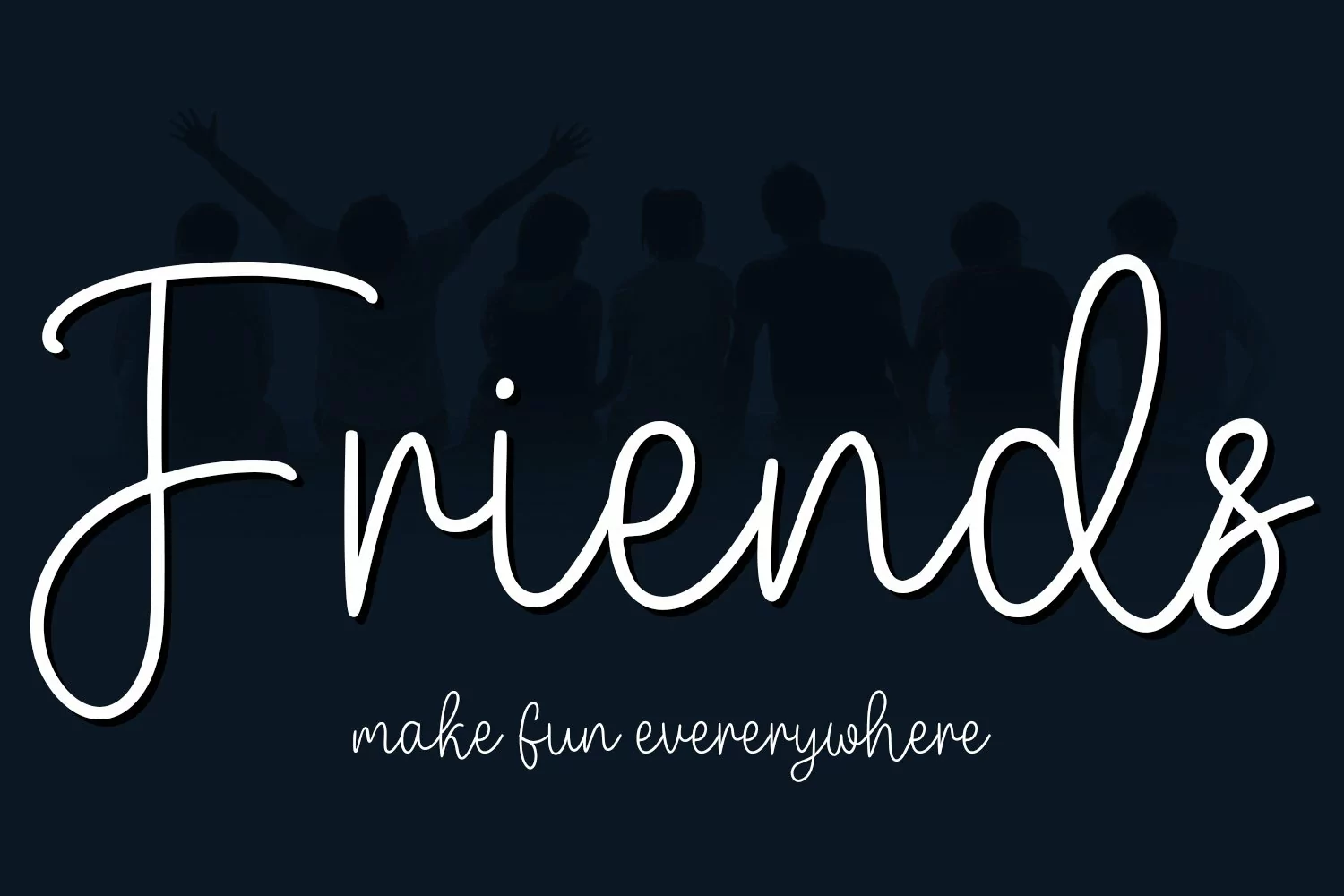
Castilock is a casual cursive script font. With regular mono-line consist stroke, fun character with a bit of ligatures and alternates. To give you an extra creative work. Castilock font support multilingual more than 100+ language. This font is good for logo design, Social media, Movie Titles, Books Titles, a short text even a long text letter and good for your secondary text font with sans or serif. Make a stunning work with Castilock font.
Castilock